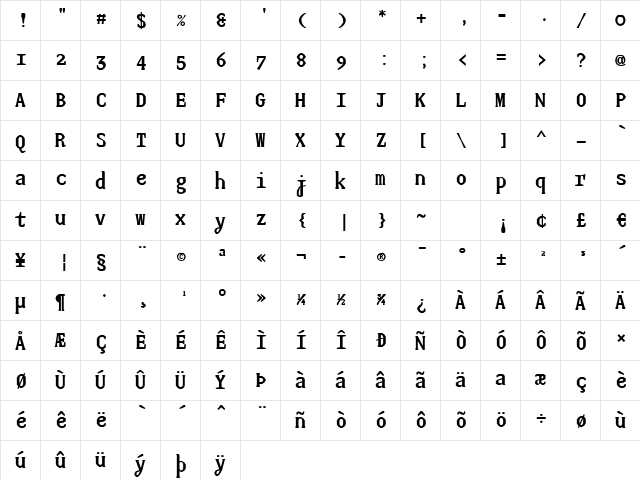
JUstice Mono Bold Font Preview
JUstice Mono Bold
Design Context for JUstice Mono Typeface
JUstice Mono brings the precise, column-aligned rhythm of monospaced typography to designs that value technical clarity and systematic order. The heavy weight commands attention and anchors typographic hierarchies.